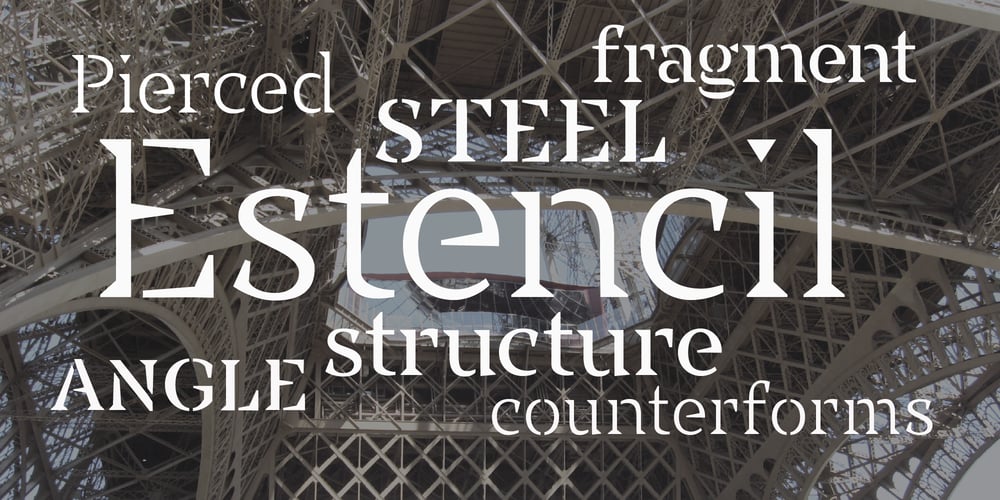
Estencil Font Family was designed by Richard Hunt and published by RG Hunt Type Design. Estencil contains 6 styles and family package options. Estencil was inspired by the use of stencil fonts used as text knocked out of steel plates. Not suitable for long text, it works well for display, signage, and wayfinding applications., maintaining legibility from a distance. It includes the Western European character set, with 251 glyphs.